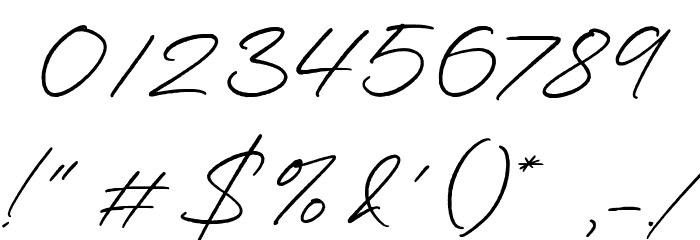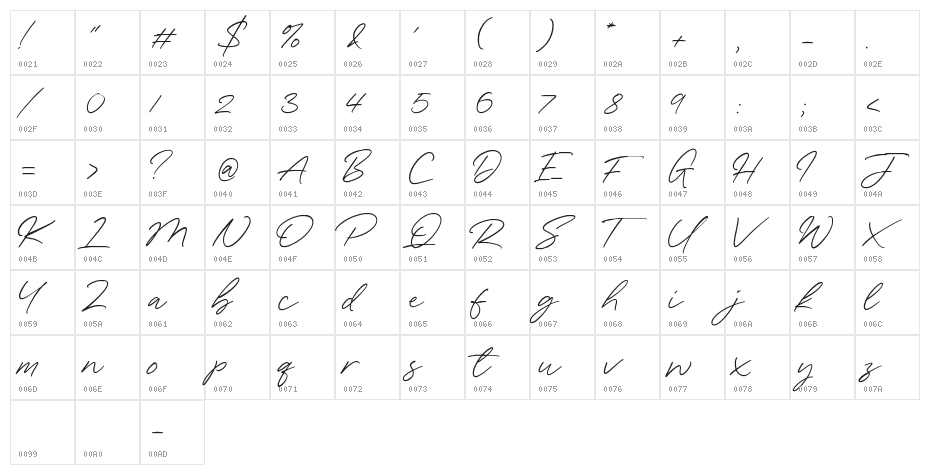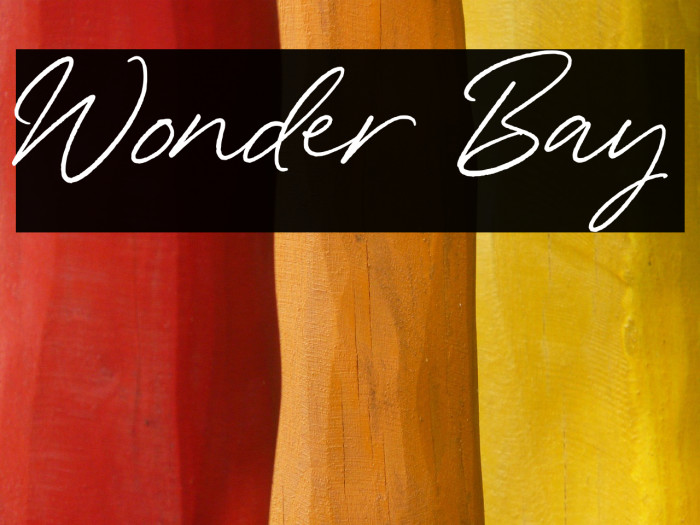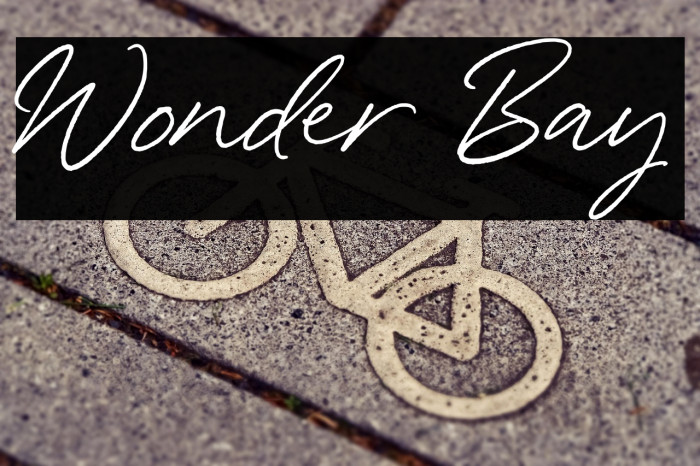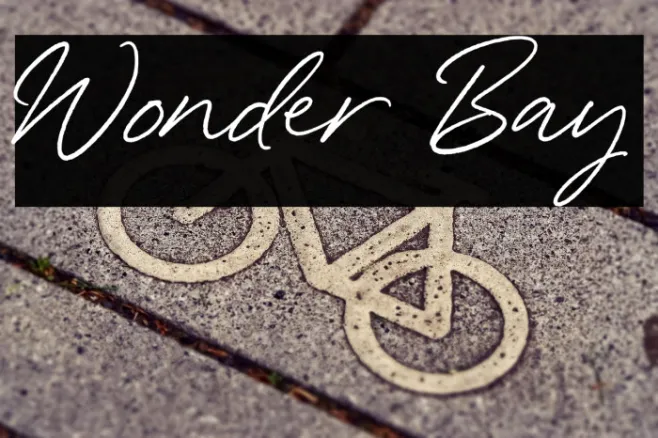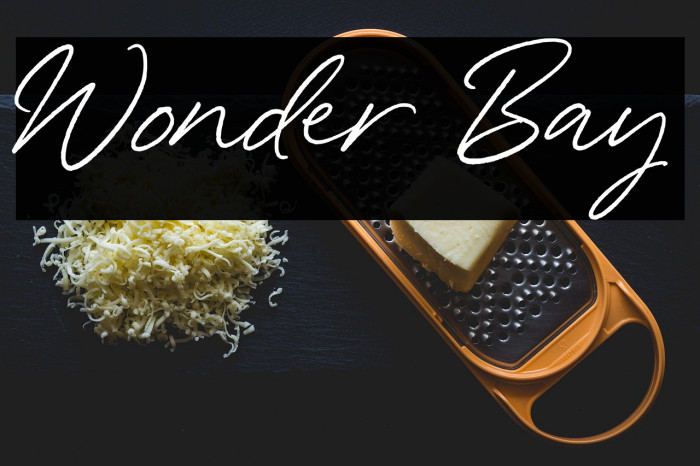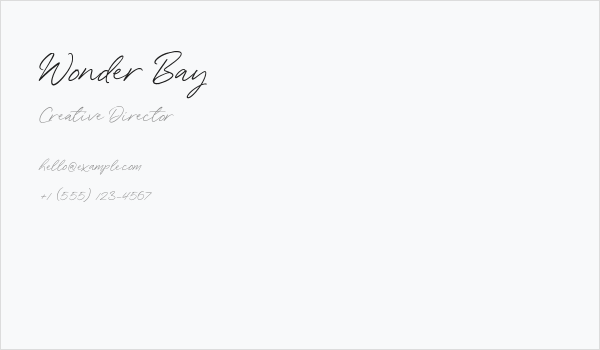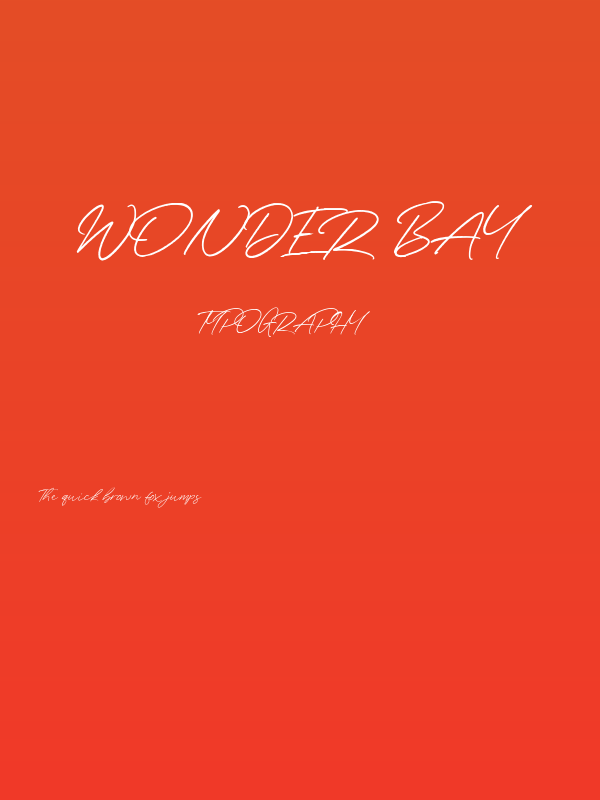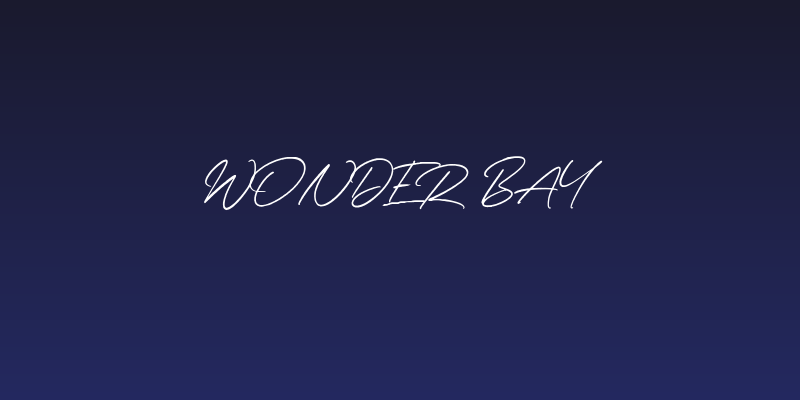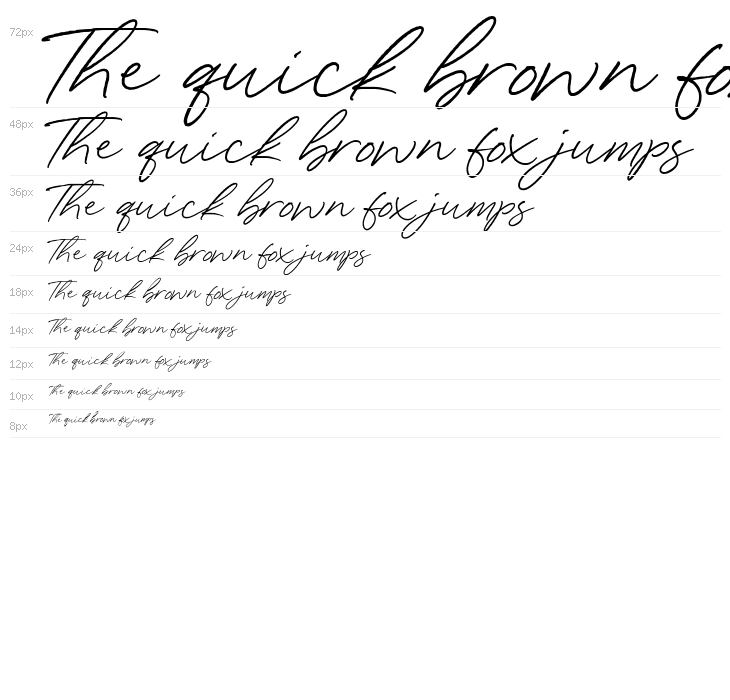
Wonder Bay Font
Wonder Bay Description
This font exudes a dynamic and fluid style, characterized by its cursive script that mimics natural handwriting. The letters are interconnected with smooth, flowing lines, creating an elegant and personal touch. The uppercase letters maintain a consistent height, while the lowercase letters vary in size, adding to the organic feel. The numerals and special characters are crafted with the same attention to detail, ensuring a cohesive look across all elements. This font is perfect for projects that require a personal or artistic flair, such as invitations, greeting cards, or branding materials.